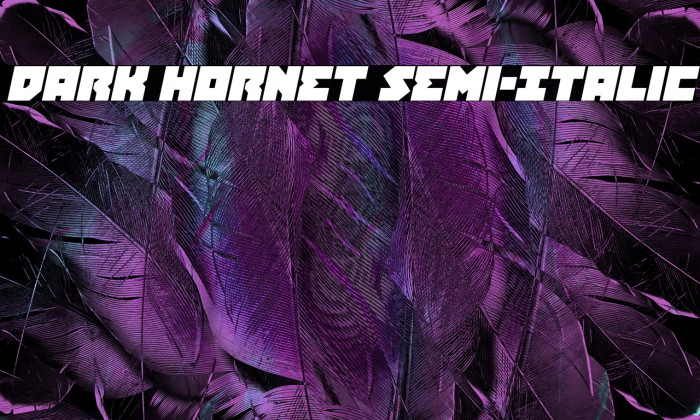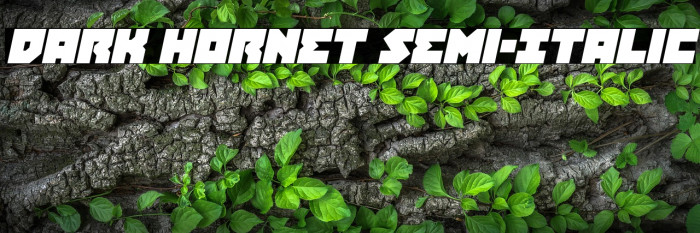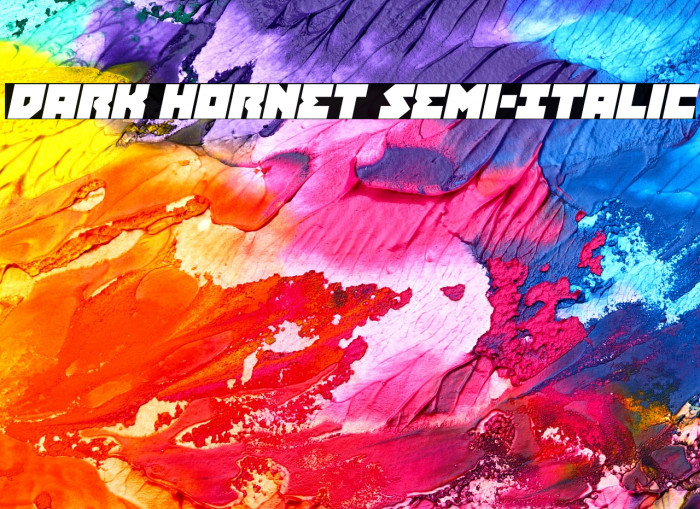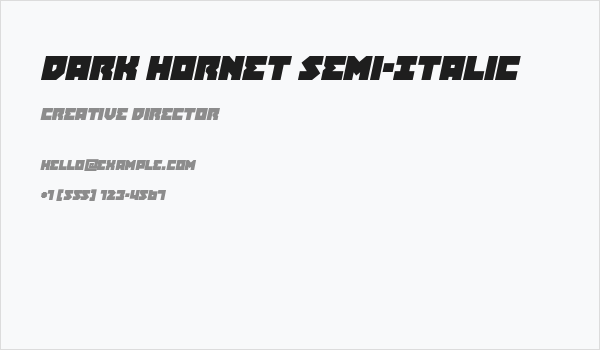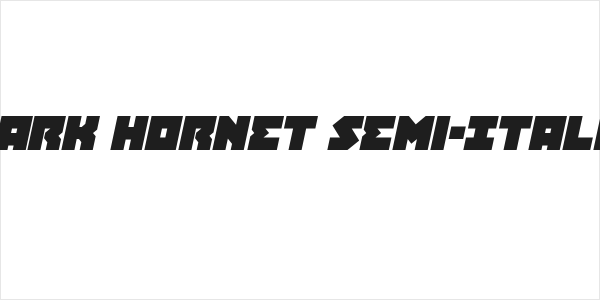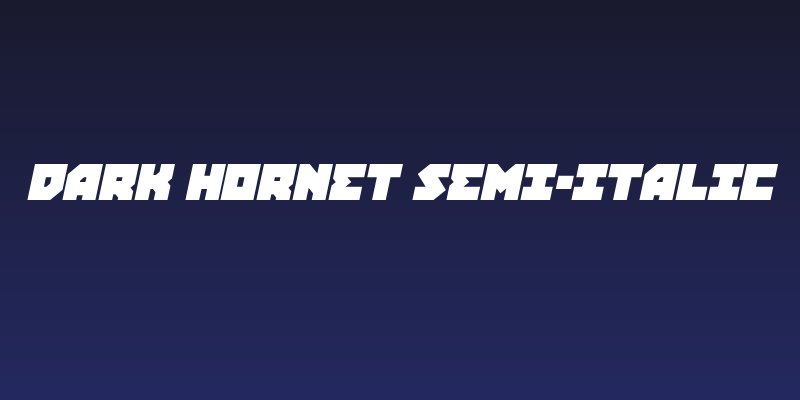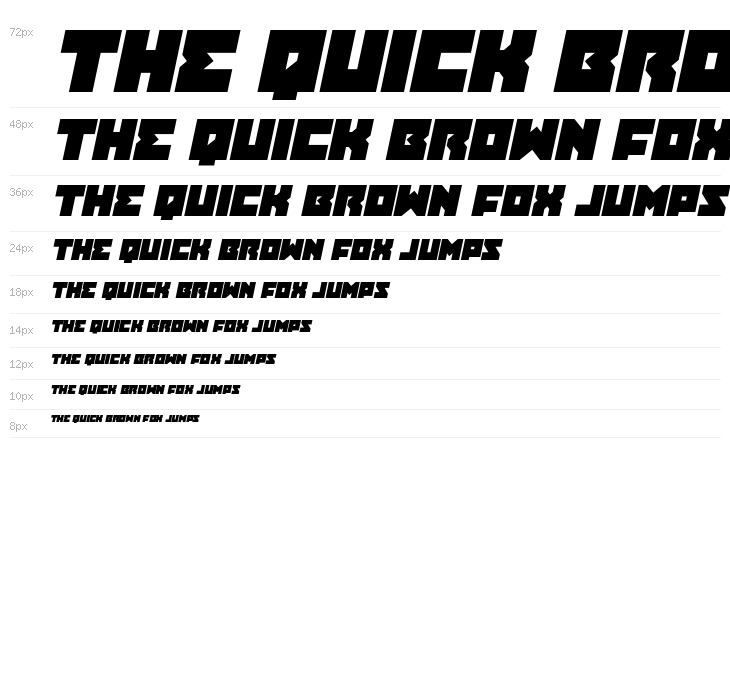
Dark Hornet Semi-Italic Font
Dark Hornet Semi-Italic Description
This font features a bold and angular design, characterized by sharp edges and a dynamic, forward-leaning stance. The uppercase and lowercase letters maintain a consistent geometric style, with each character exhibiting a unique, aggressive flair. The numerals and special characters follow the same aesthetic, ensuring uniformity across all glyphs. The font's distinct appearance makes it ideal for projects requiring a strong visual impact. Its semi-italic slant adds a sense of motion and urgency, enhancing its modern and edgy appeal.
Overall StyleModern, Edgy
Proposed ProjectsIdeal for sports branding, video game titles, action movie posters, and edgy graphic designs.